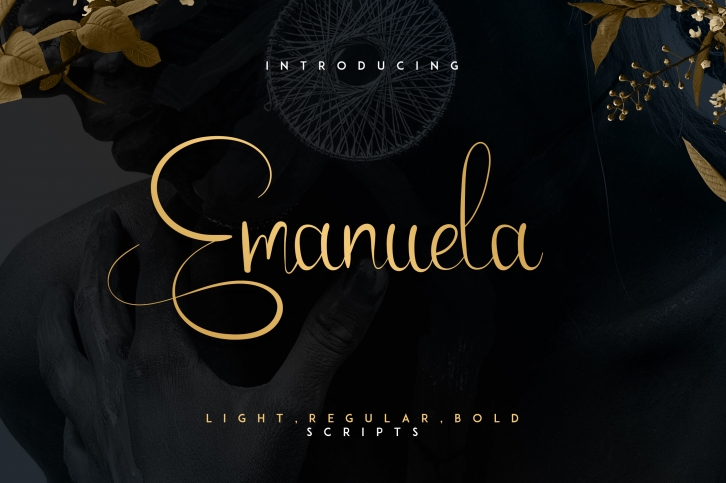
Emanuela is a beautiful, handwritten script font that is perfect for adding romance and luxury to your type-based designs. Wth thin characters and different styles, Emanuela is easily adaptable to a large number of design options.